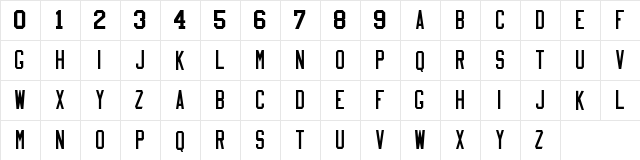
NHL Ottawa Regular Font Preview
NHL Ottawa Regular
Design Context for NHL Ottawa Typeface
NHL Ottawa takes a measured approach to typography — its balanced proportions and neutral character make it a reliable workhorse for both digital and print work.